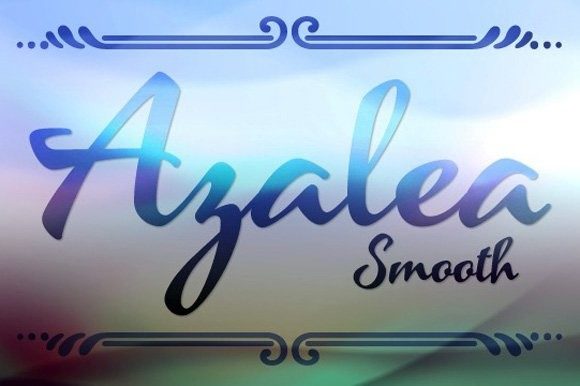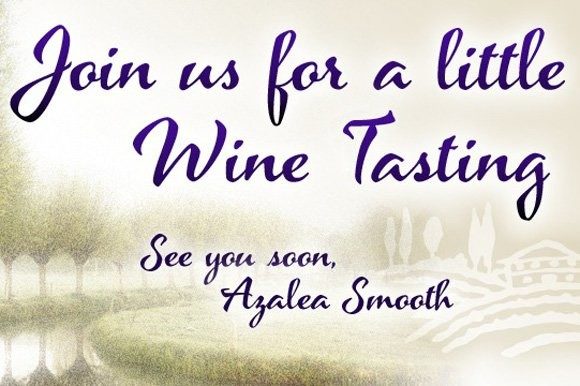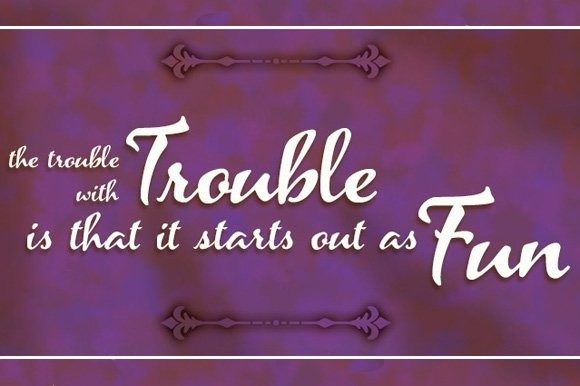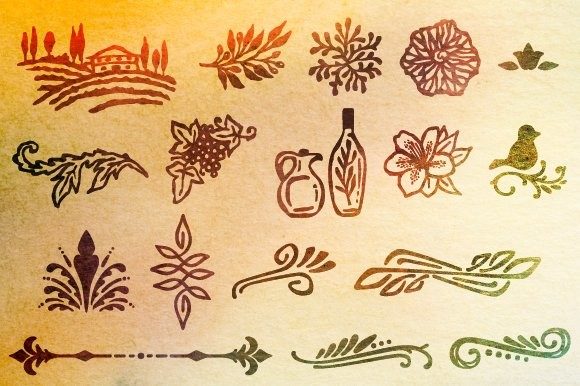
Azalea Smooth Font
About Azalea Smooth Font
Azalea Smooth is a unique duo font (script and dingbats). Its careful, inky strokes reference classic brush styles of the 1950s, but its jaunty angularity is distinctly modern. Artfully irregular thicks and thins lend it an organic and slightly rustic feel, great for your wildest creative projects! This font is PUA encoded, which means you can access all of the glyphs and swashes with ease!